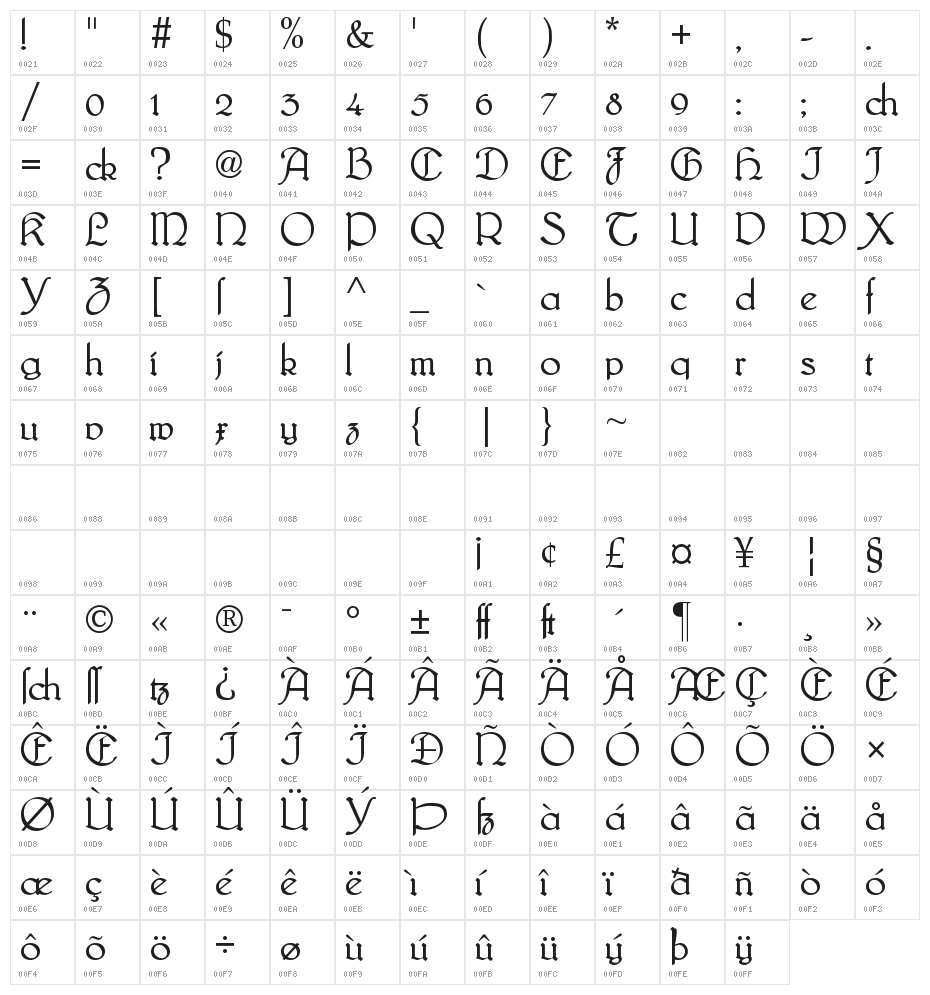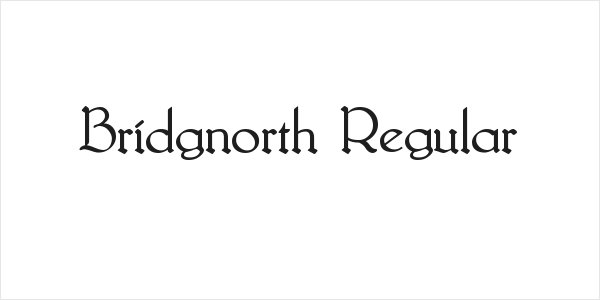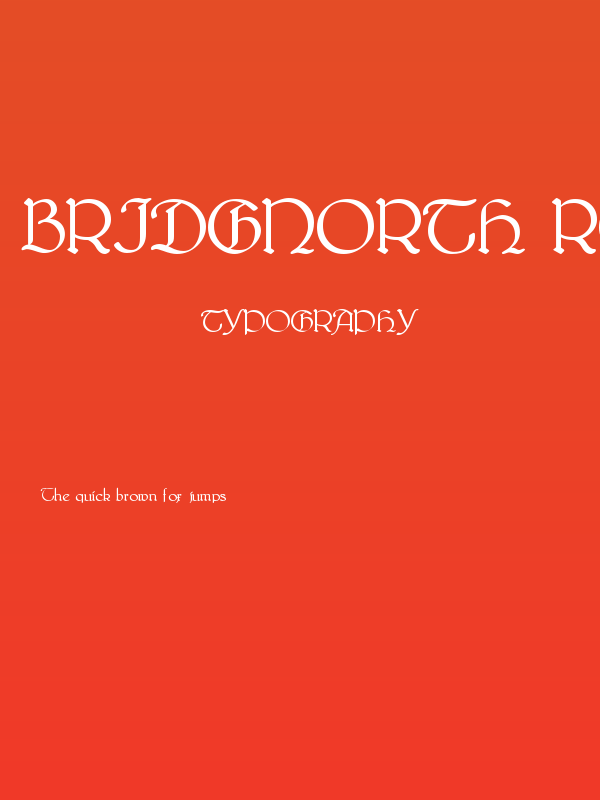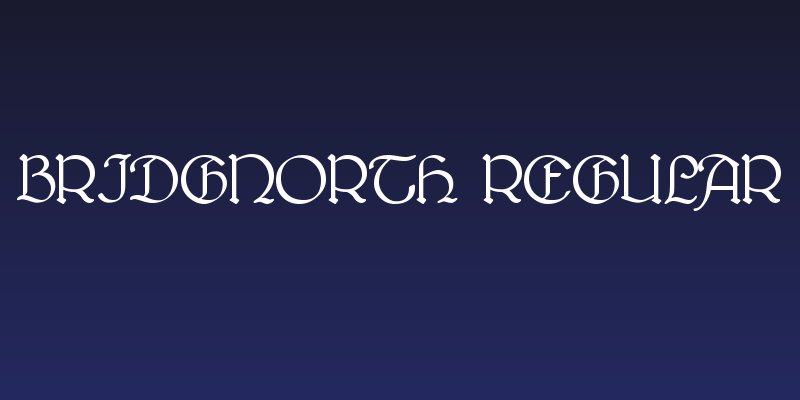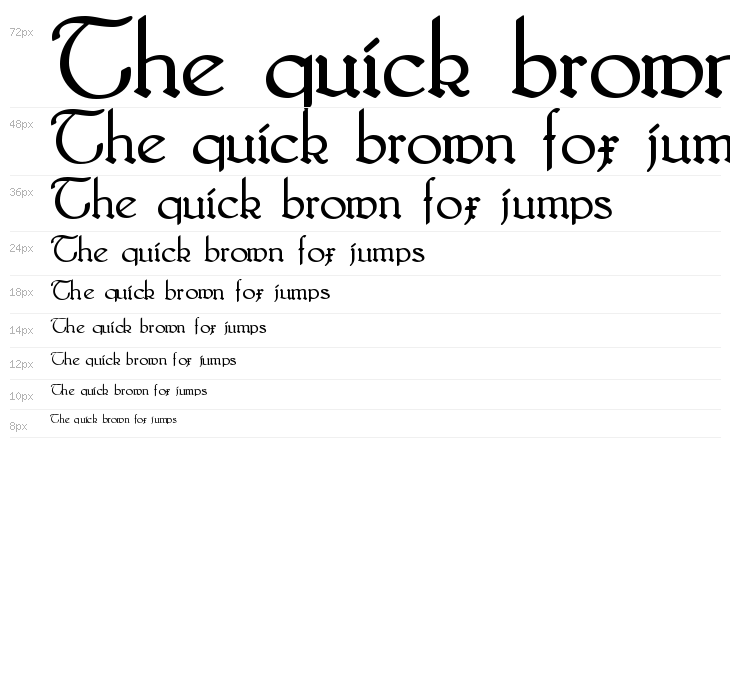
Bridgnorth Regular Font
Bridgnorth Regular Description
This font features a distinctive blend of traditional and modern elements, characterized by its ornate and decorative style. The uppercase letters exhibit a unique flair with intricate curves and sharp angles, while the lowercase letters maintain a more straightforward yet elegant form. The numerals are consistent with the overall aesthetic, offering a harmonious balance between readability and artistic expression. Special characters are thoughtfully designed to complement the alphabet, enhancing the font's versatility. This typeface is ideal for projects that require a touch of sophistication and historical charm.